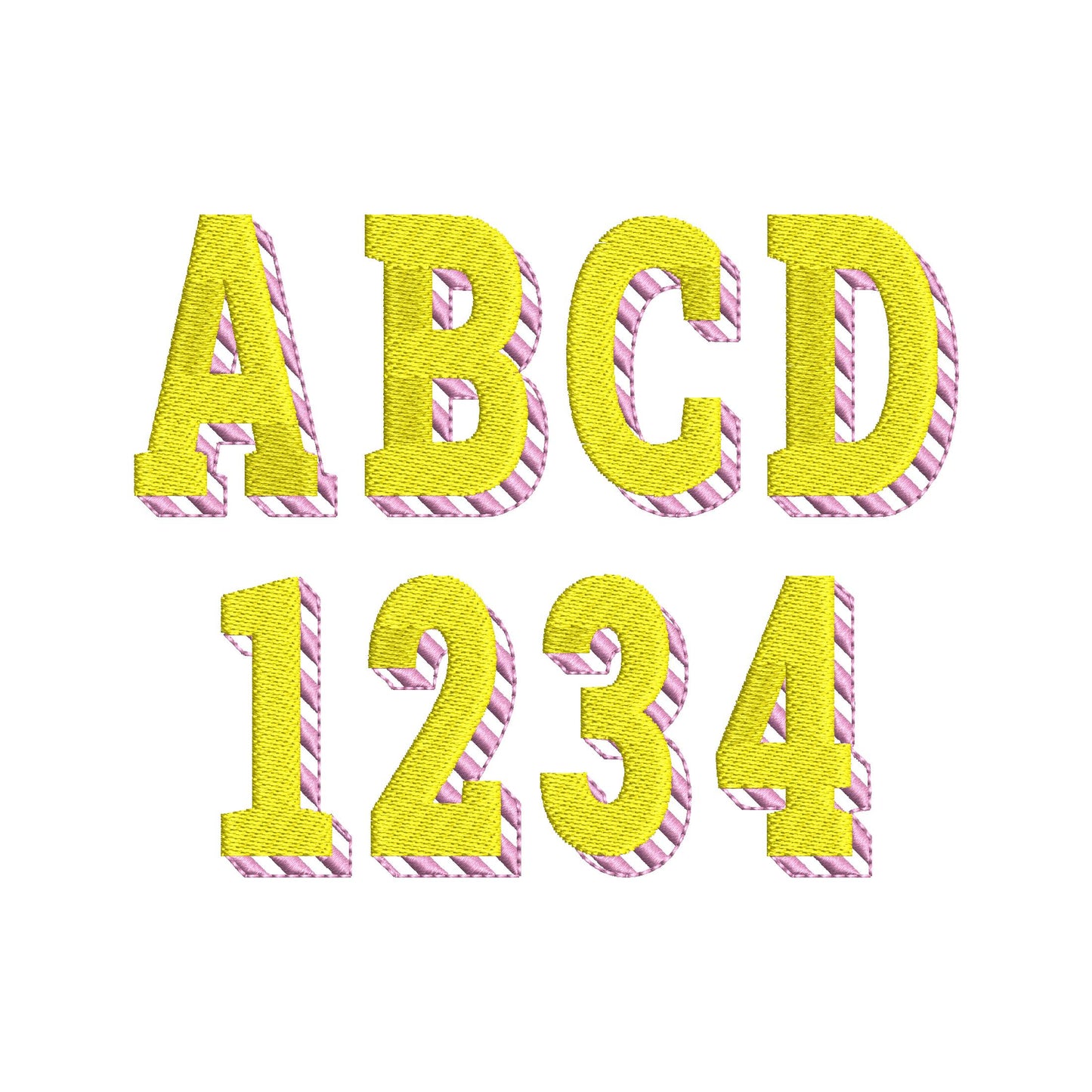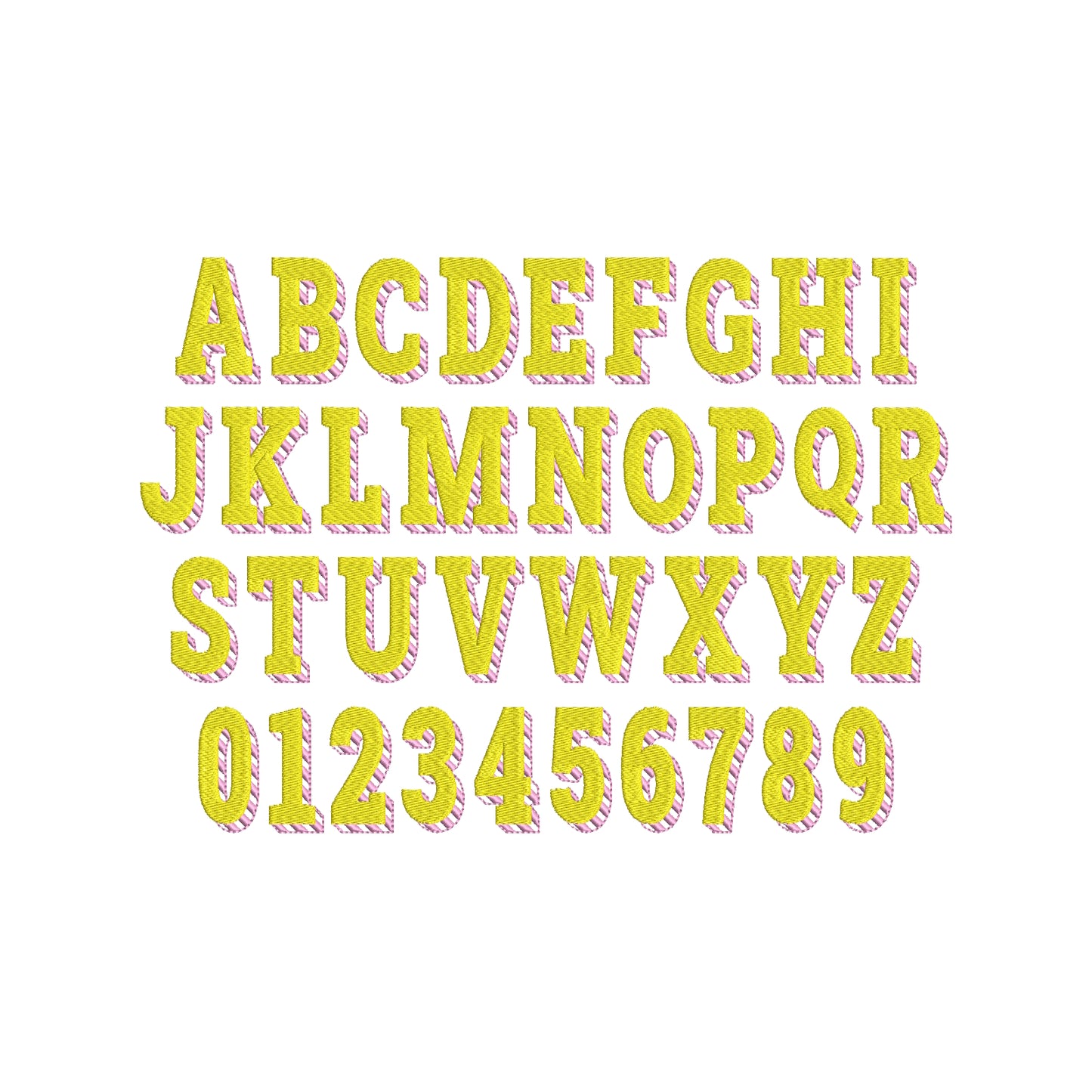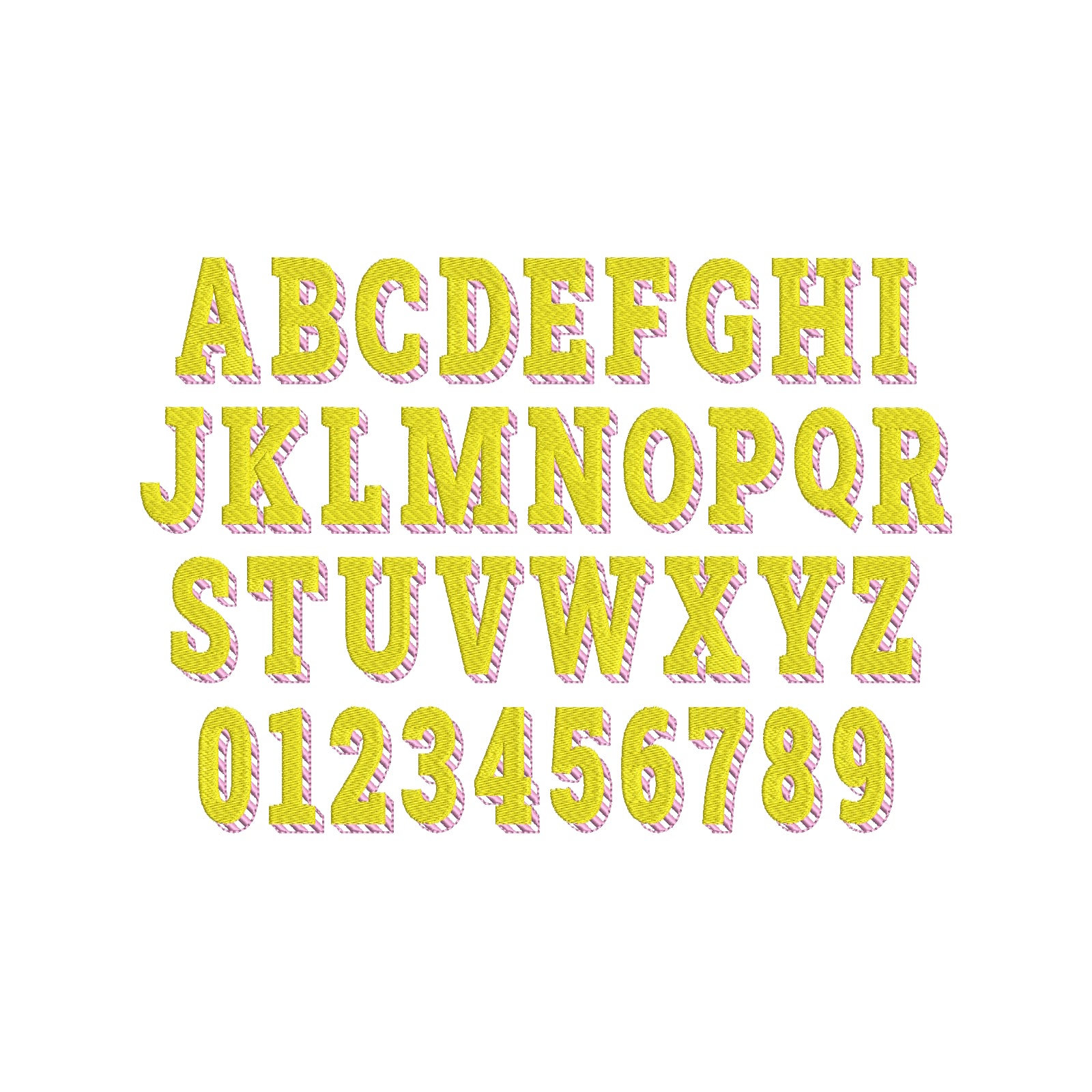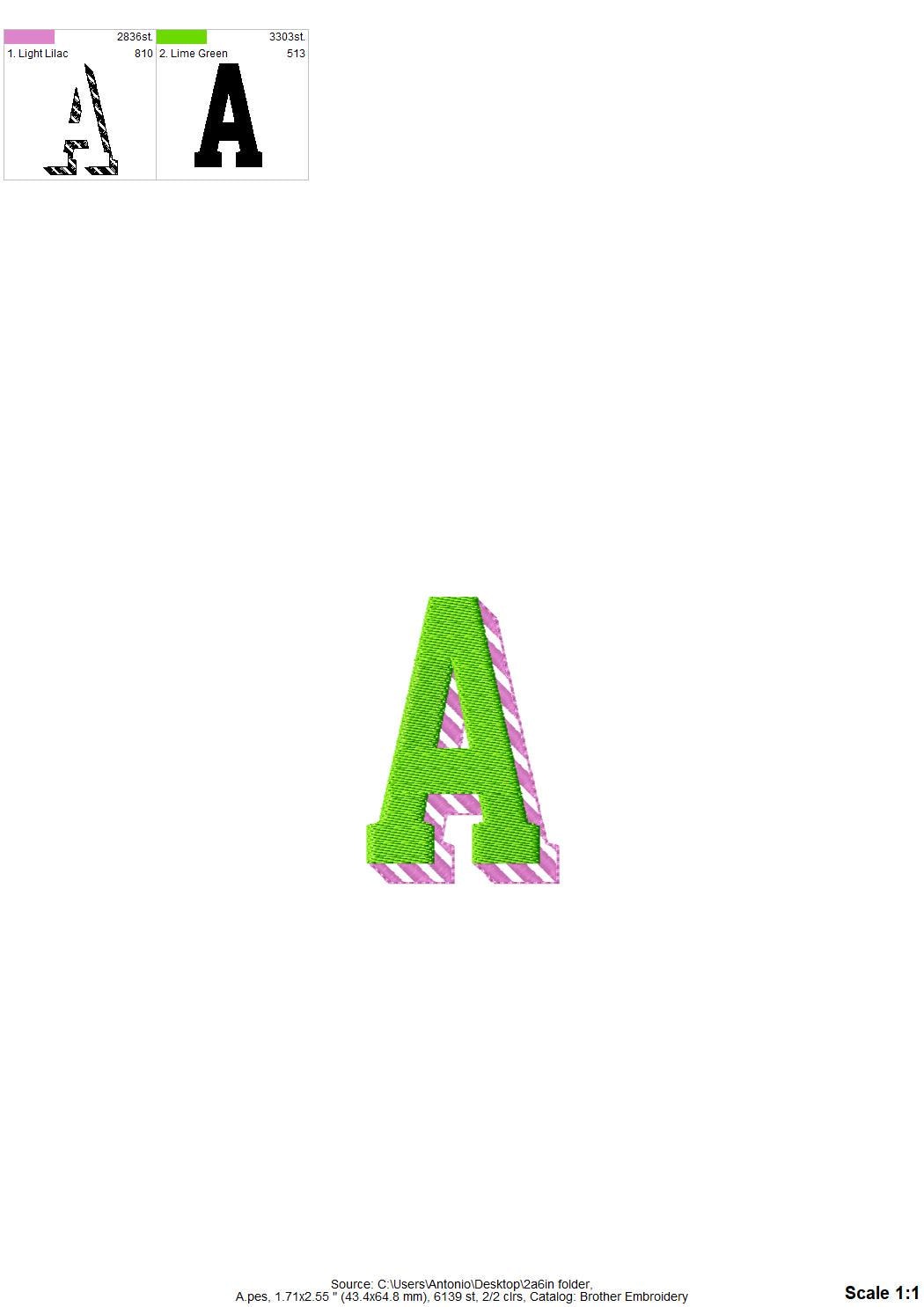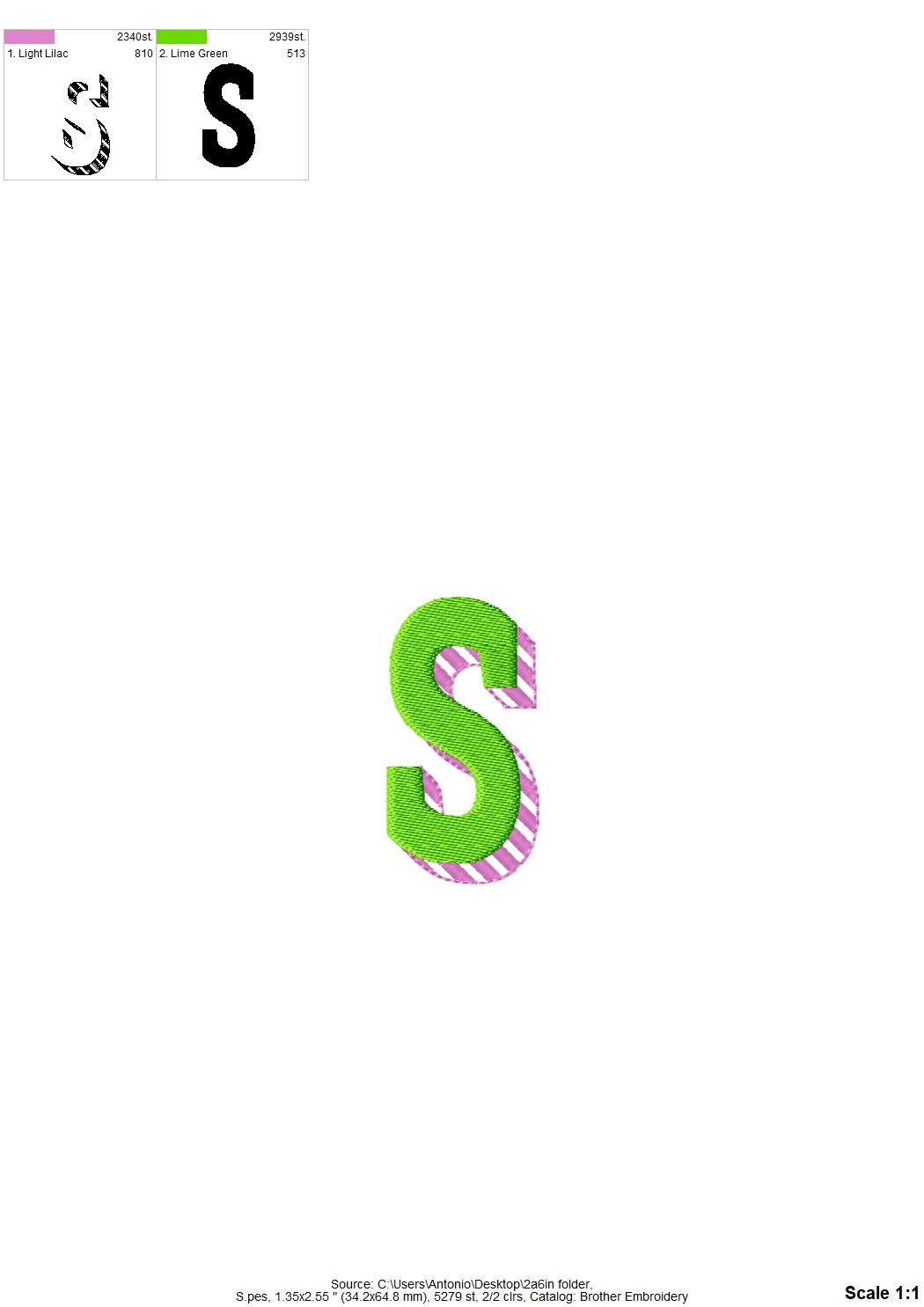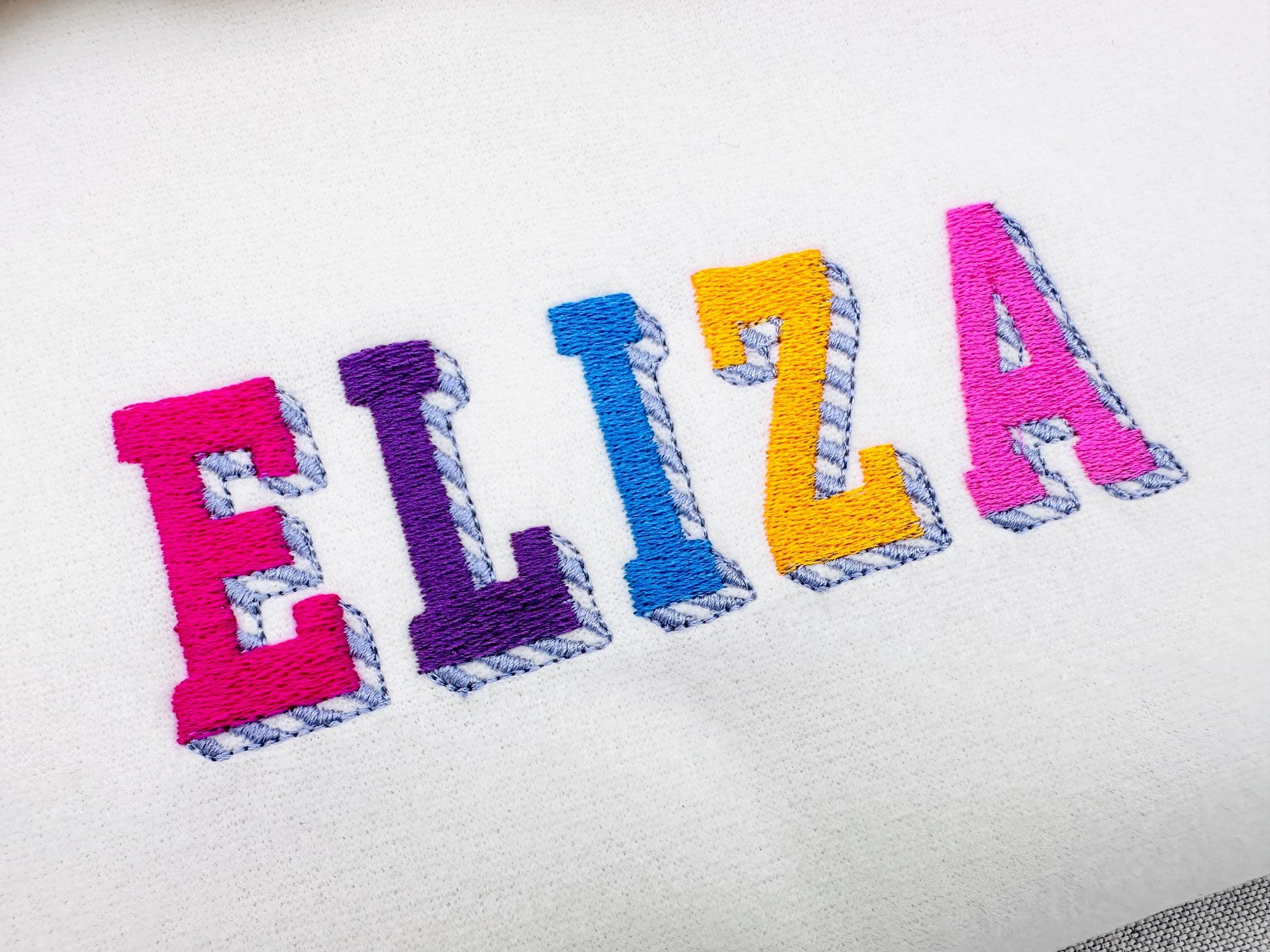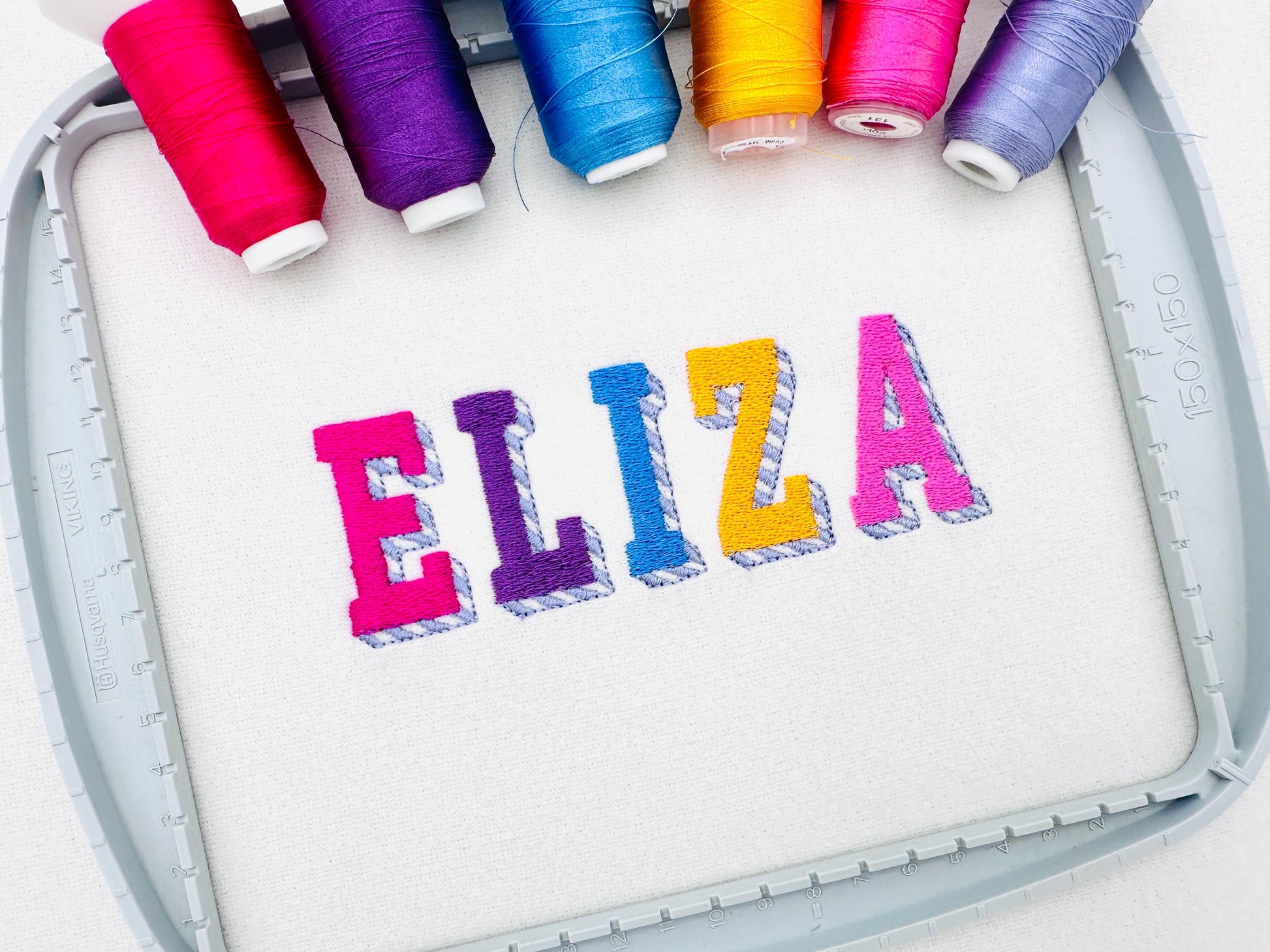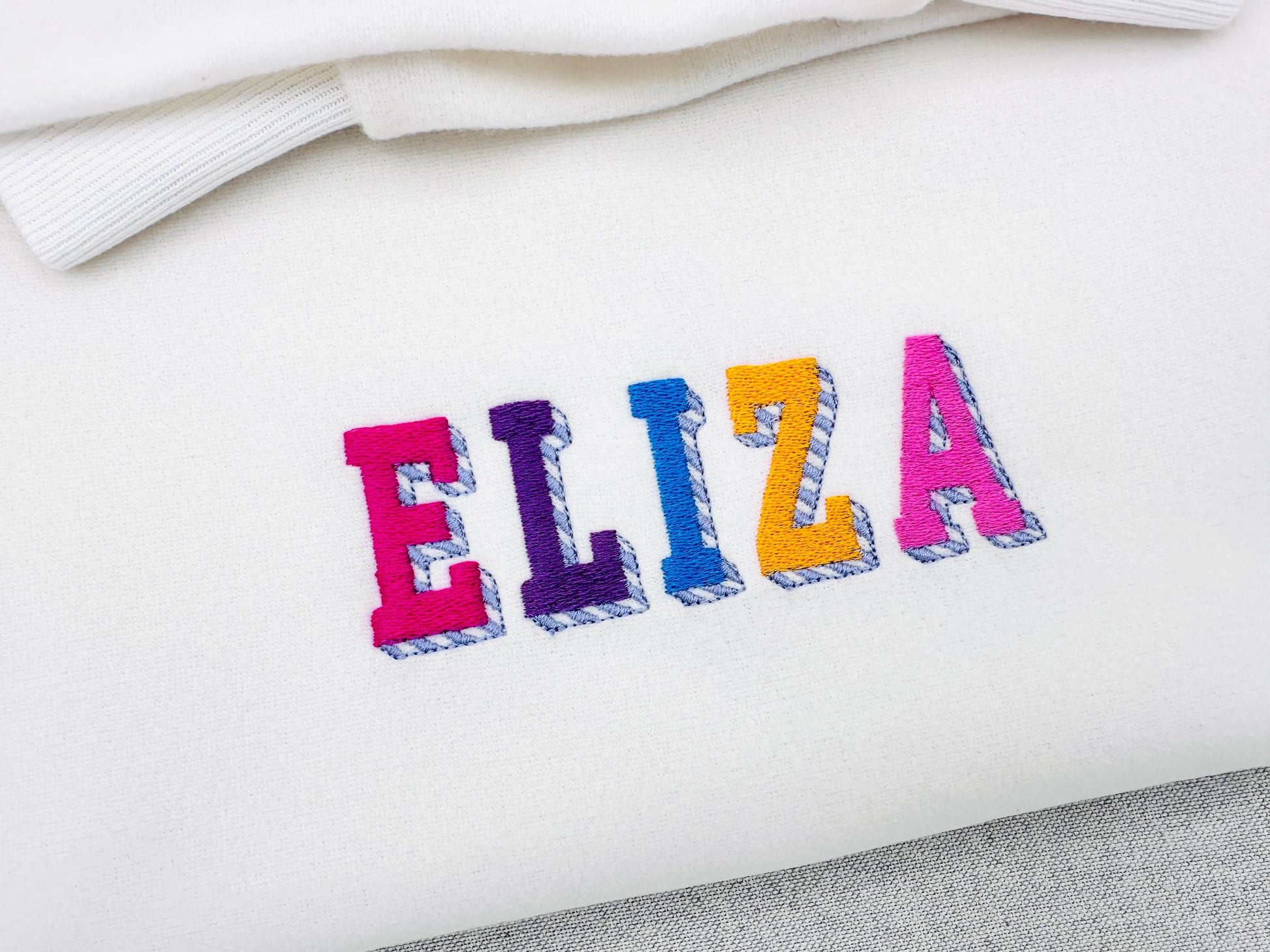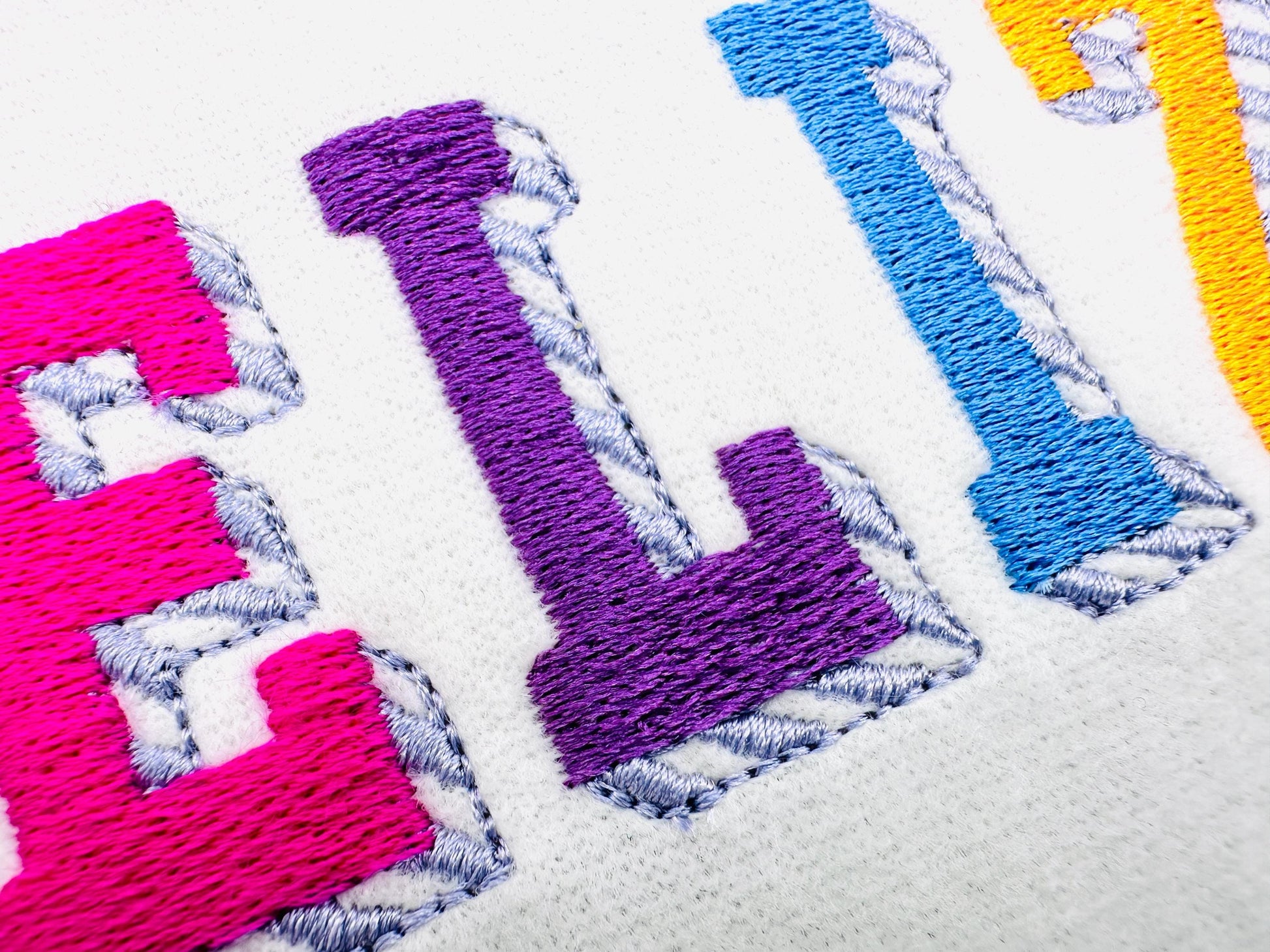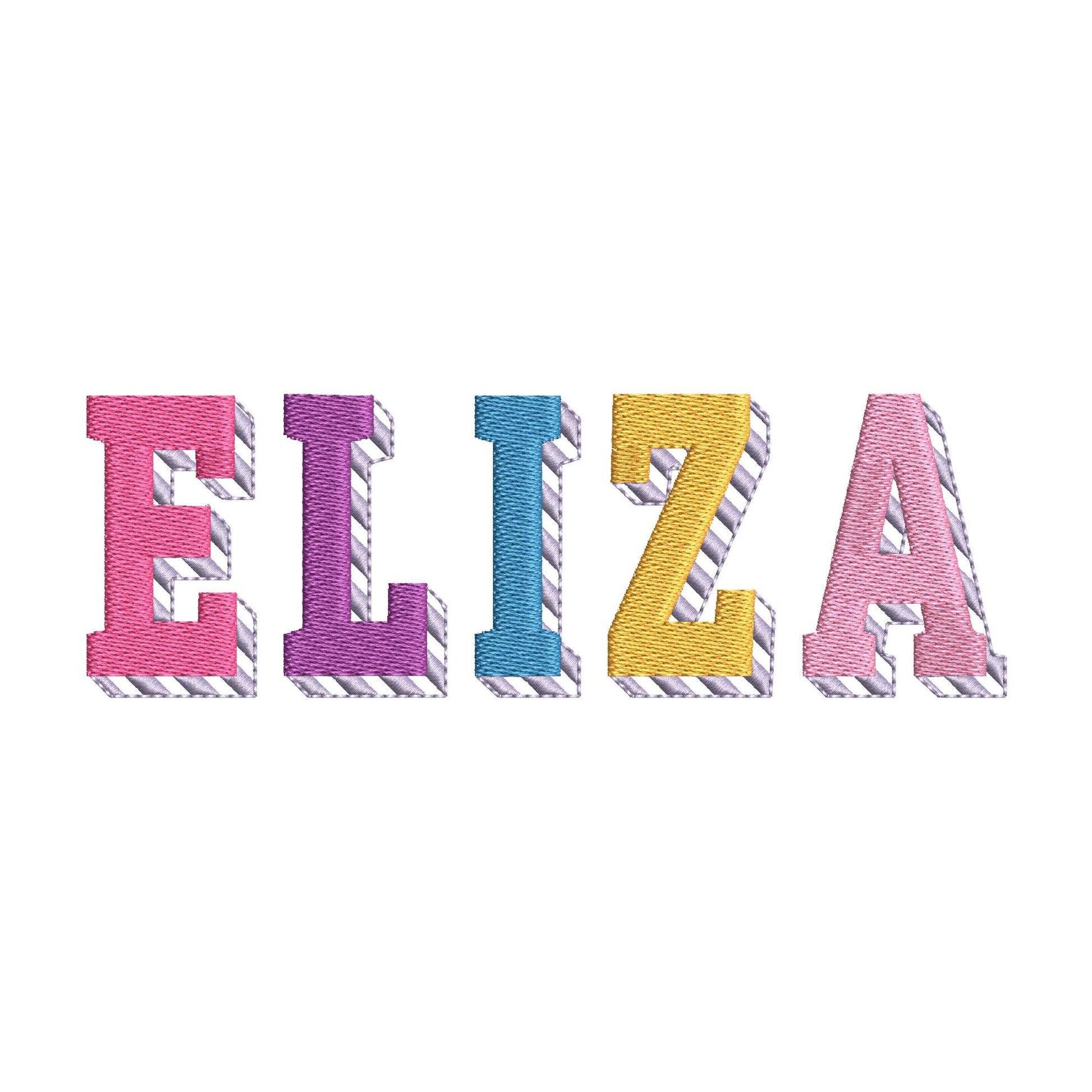
Block Striped Shadow Font
The letters come in six sizes: 1, 1.4, 1.8, 2.2, 2.6 and 3 inches. Striped fill stitch block letters with a shadow. Includes uppercase letters A to Z and numbers 0 to 9.
- Striped shadow block font, fill stitch
- Uppercase A to Z, numbers 0 to 9